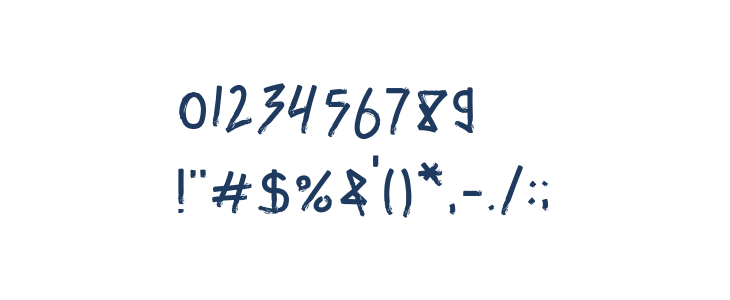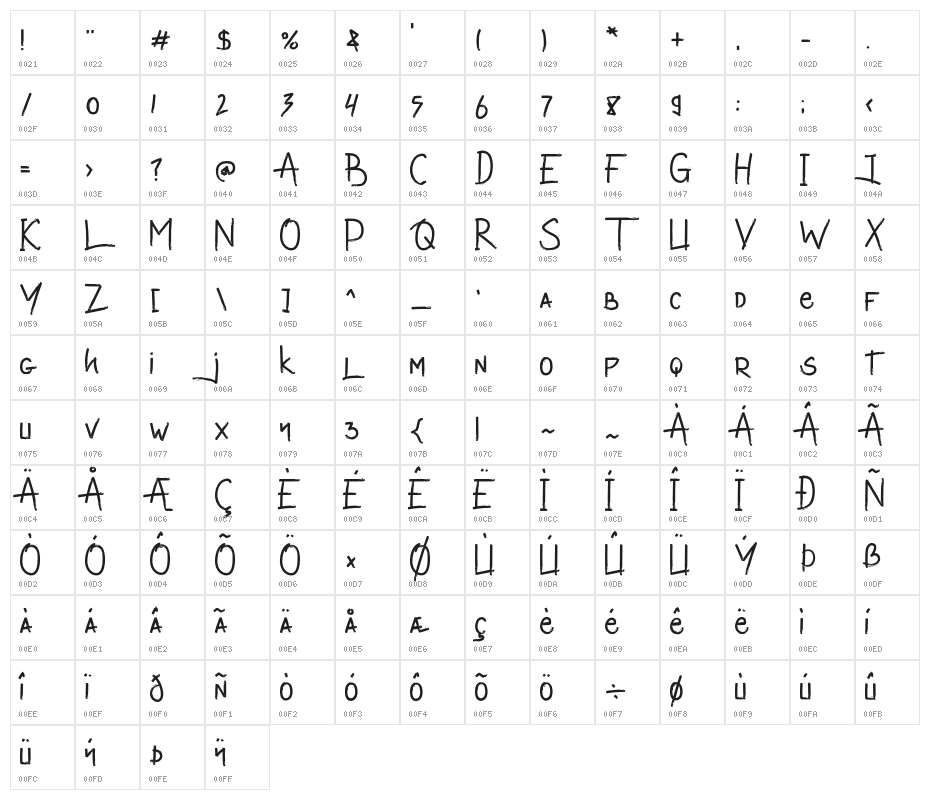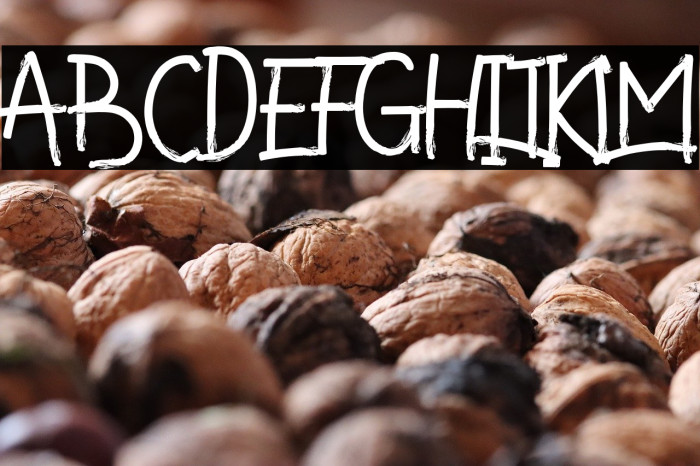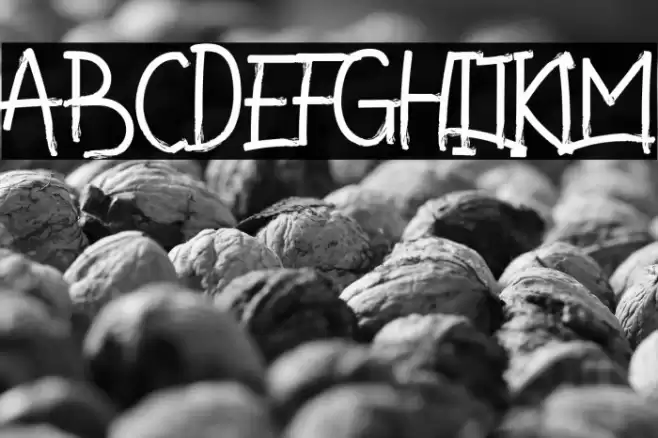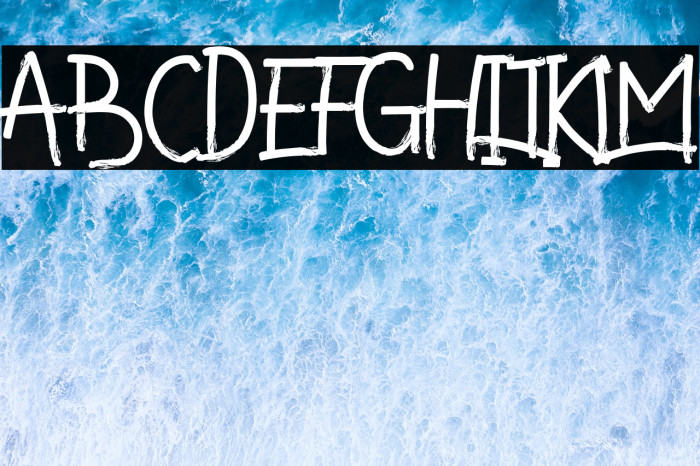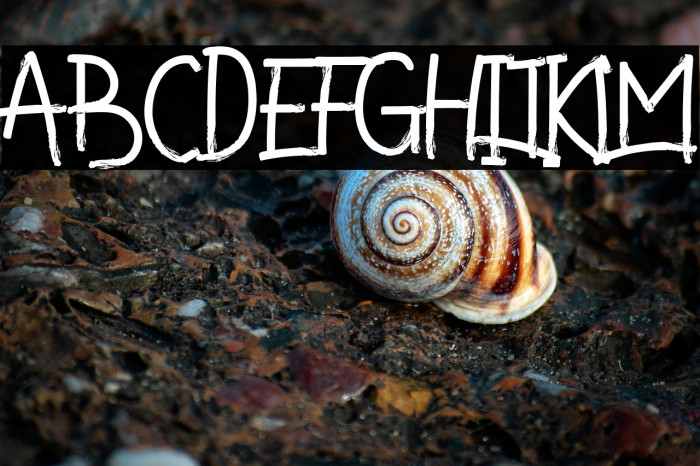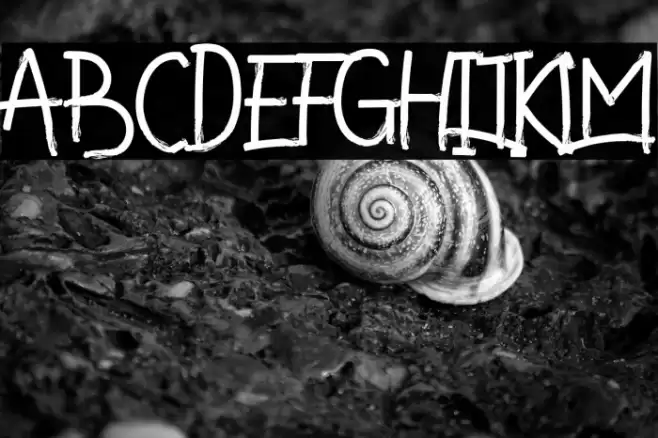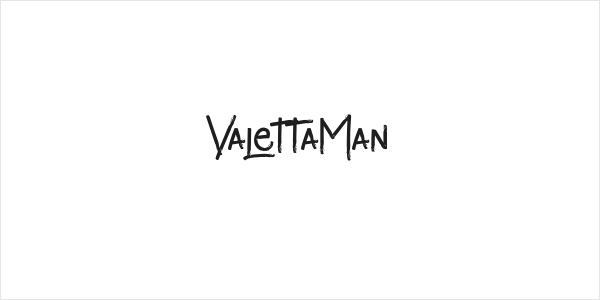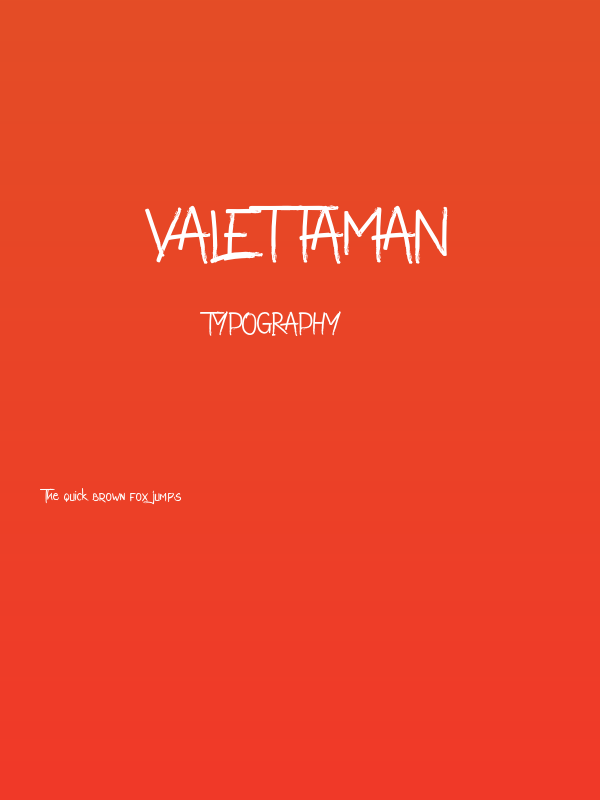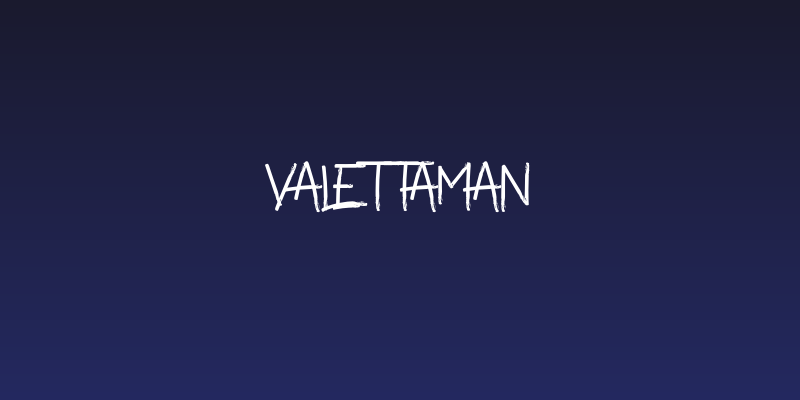
ValettaMan Font
ValettaMan Description
This font exhibits a bold, expressive style with a hand-drawn appearance. The letters are characterized by uneven strokes and a slightly rough texture, giving it a raw and energetic feel. The uppercase letters are tall and narrow, while the lowercase letters maintain a consistent style with a playful touch. Numbers and special characters follow the same aesthetic, ensuring a cohesive look across all elements. The font's unique style makes it stand out, offering a dynamic and artistic vibe.
| Use Case | Headlines, Logos, Artistic projects |
| Proposed Projects | Ideal for creative projects such as posters, album covers, graffiti art, and branding that requires a bold, artistic touch. |